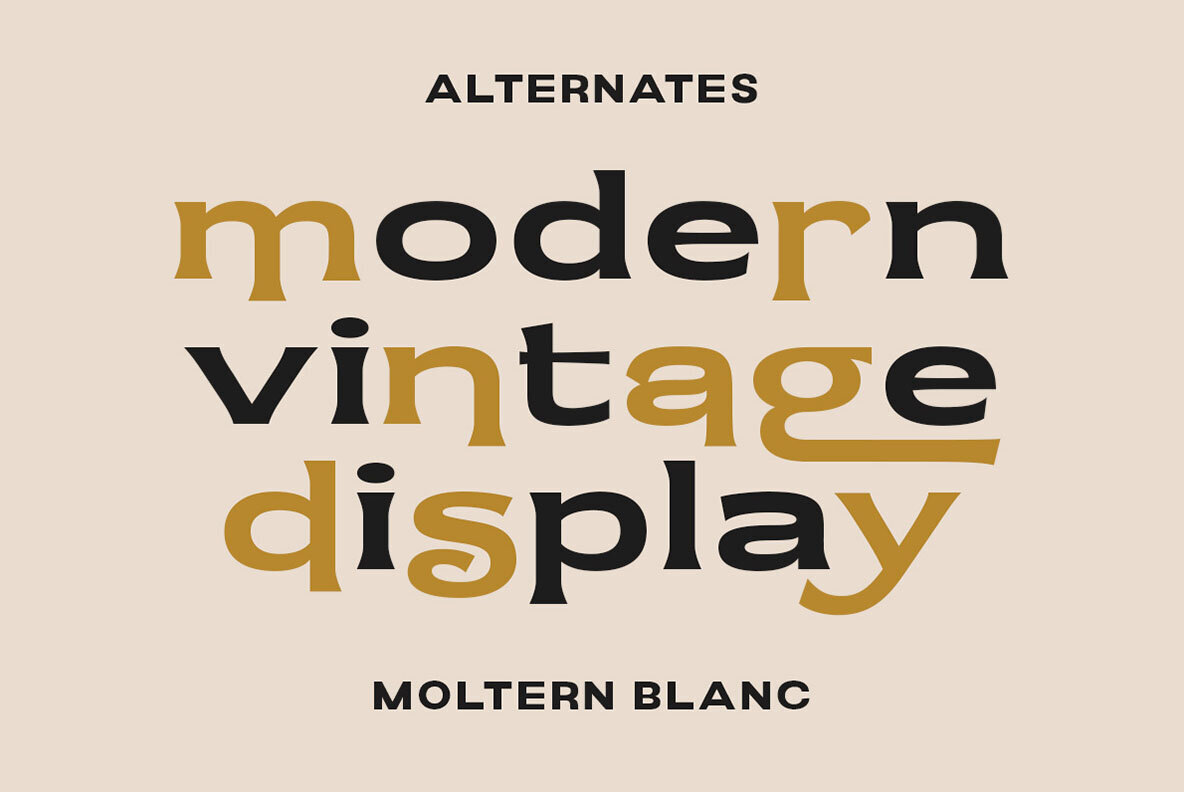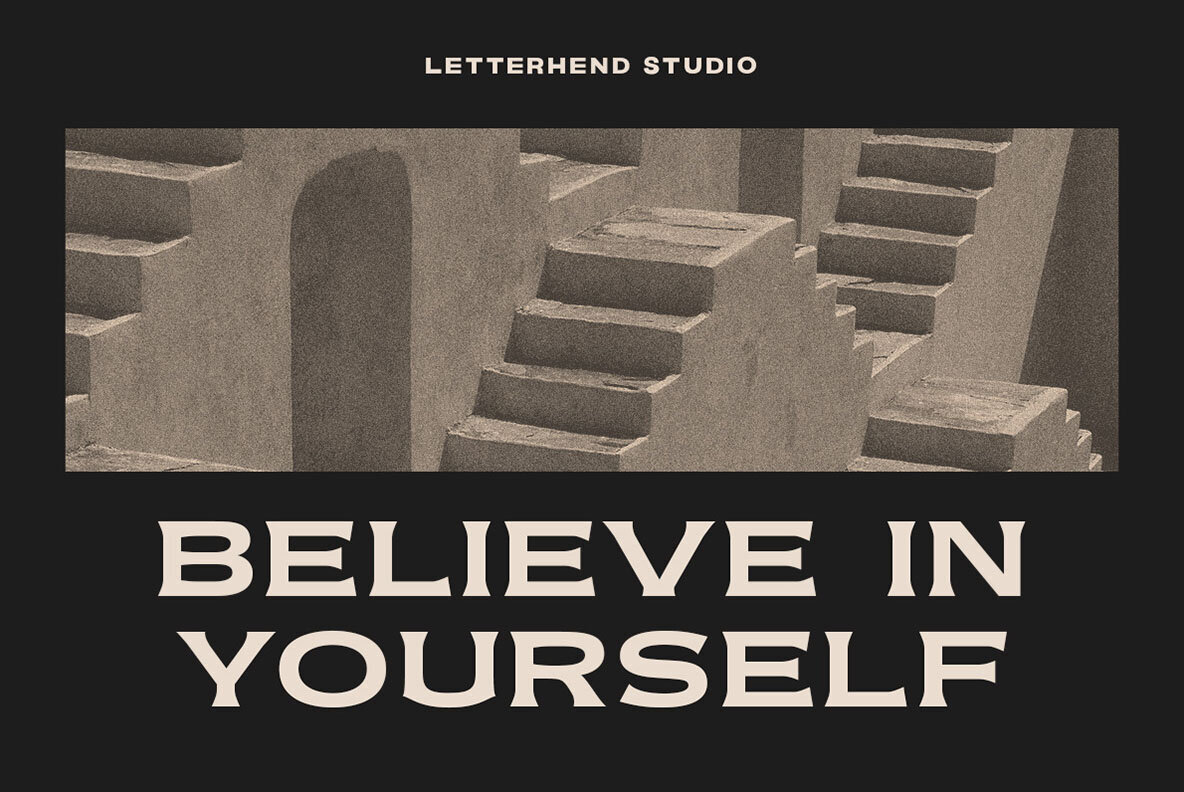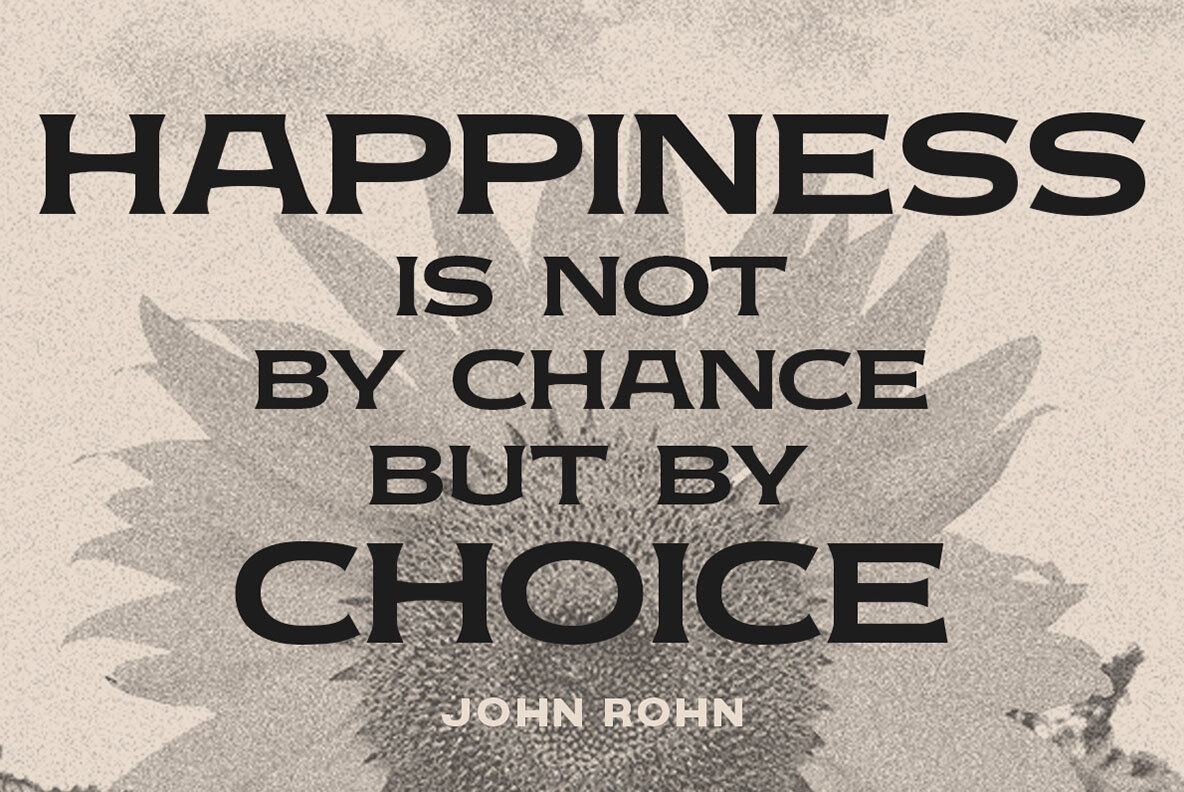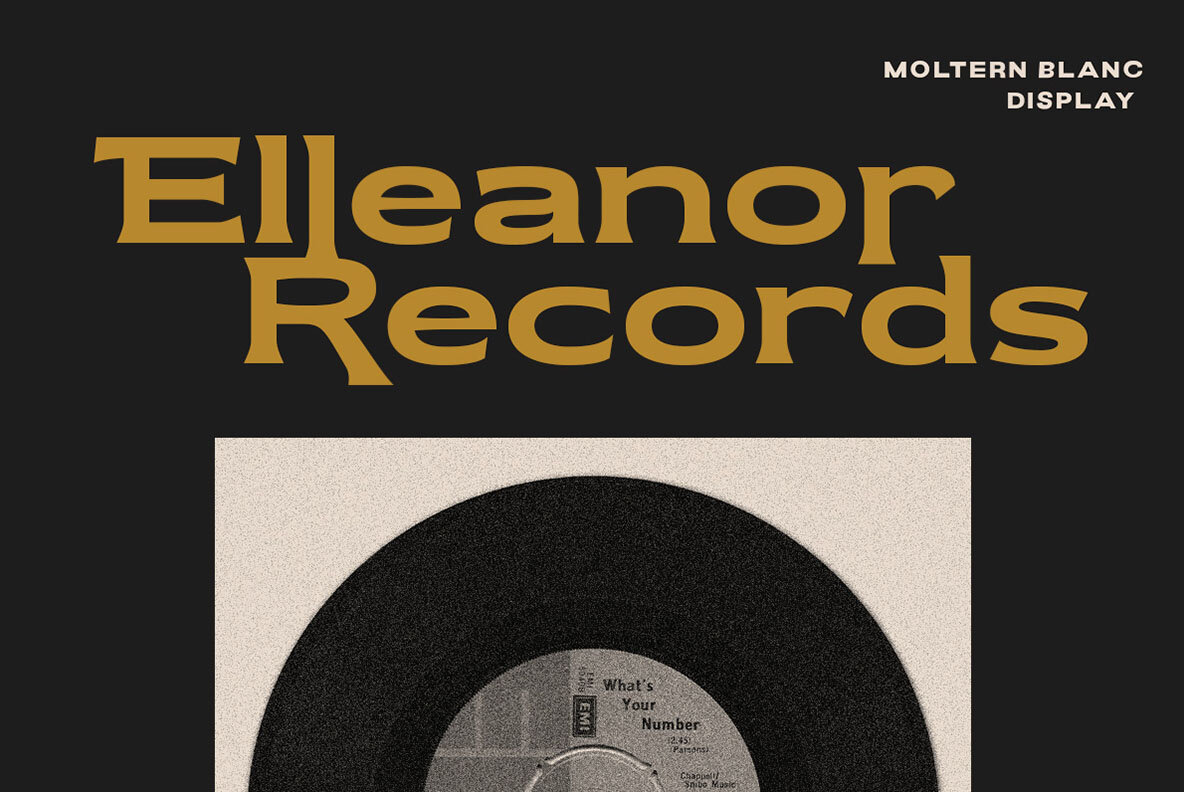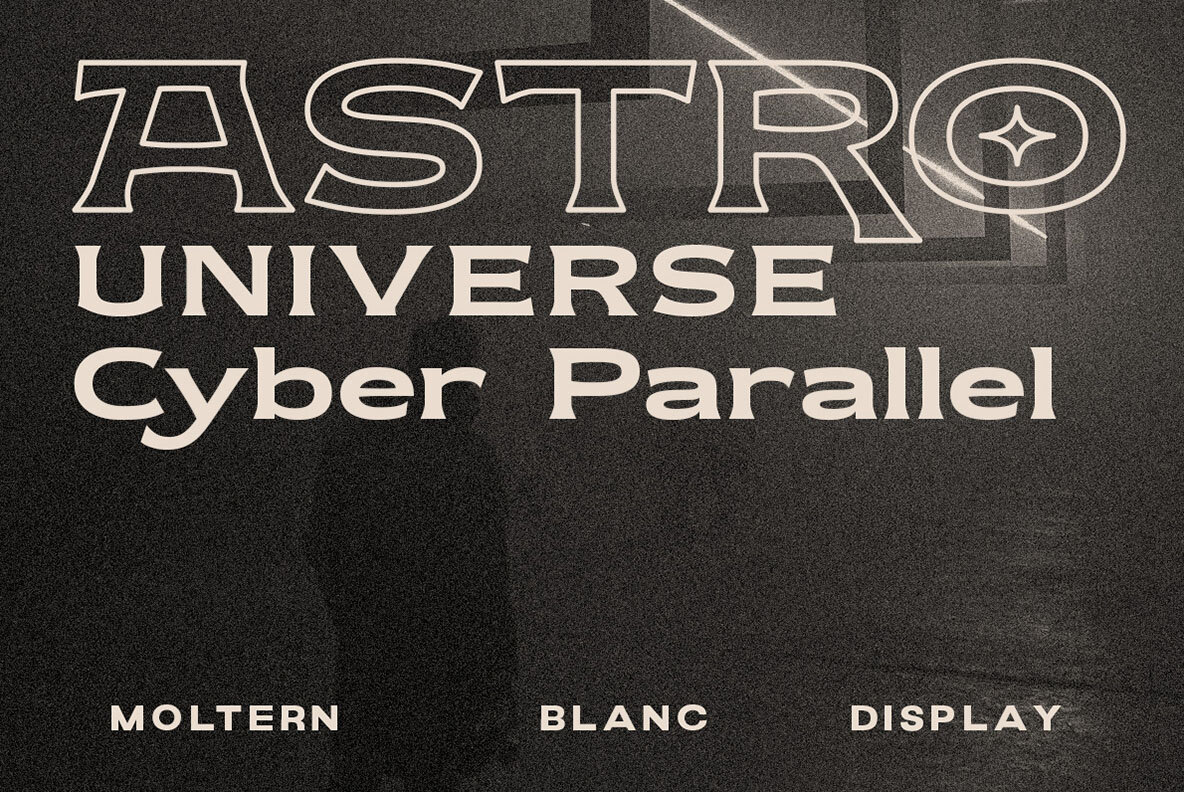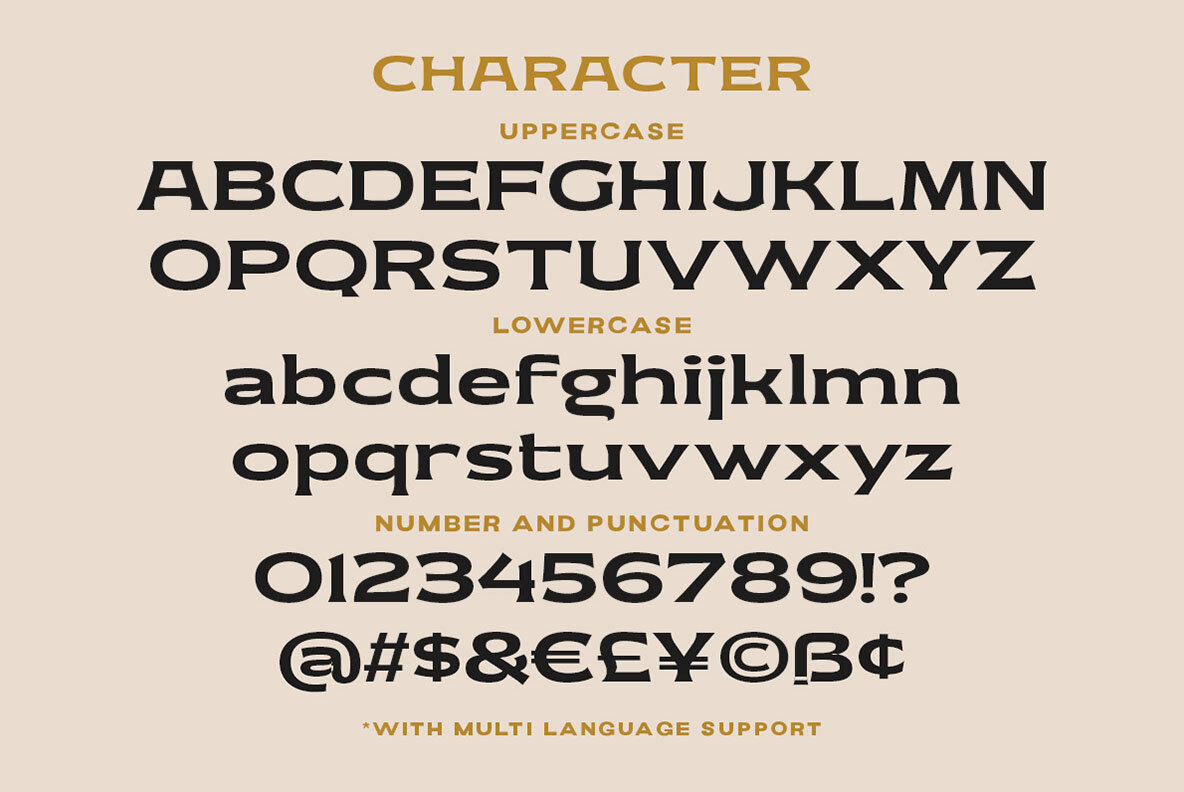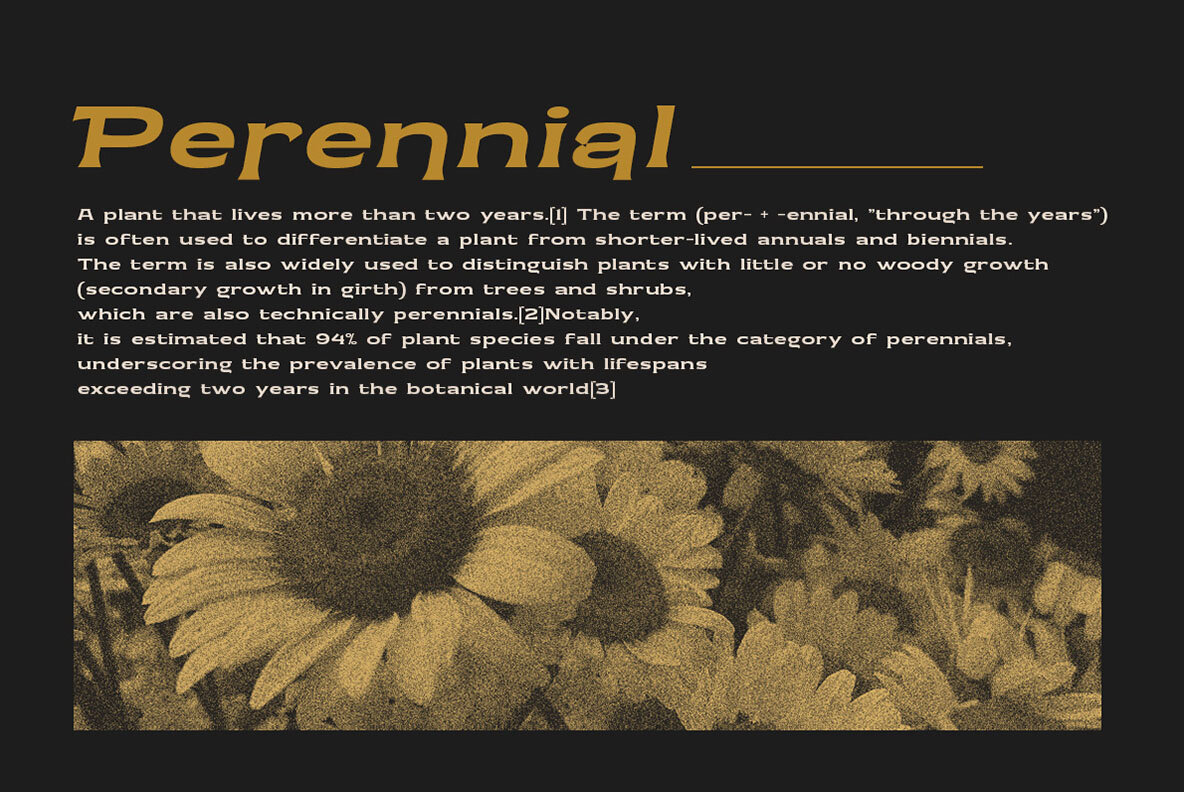
Moltern Blanc Font
Moltern Blanc Regular
Moltern Blanc is an elegant vintage display font that beautifully balances modern and classic aesthetics. Perfectly suited for logos, invitations, labels, magazines, books, greeting cards, wedding cards, packaging, fashion, makeup, stationery, novels, and various advertising purposes, this font brings a touch of class to any project. For optimal usage, we highly recommend a program that supports OpenType features and Glyphs panels, such as Adobe applications and Corel Draw, to fully explore its potential.Moltern Blanc: A Classy Vintage Display Font